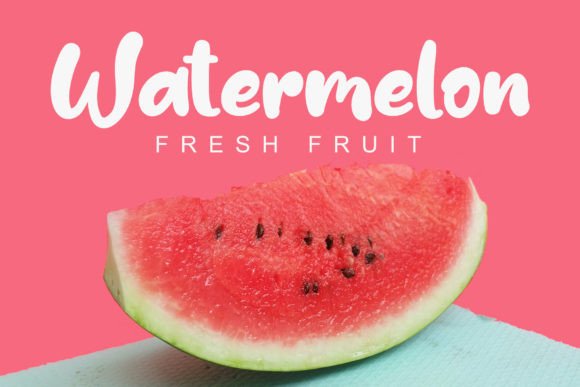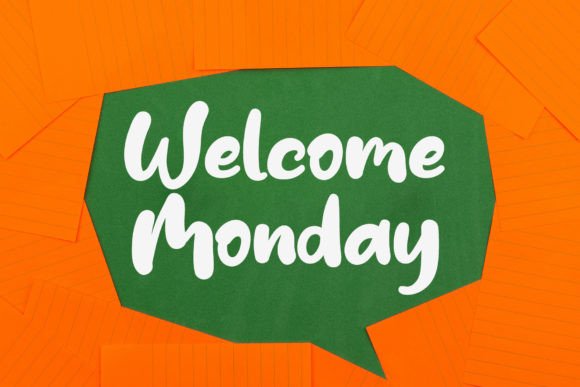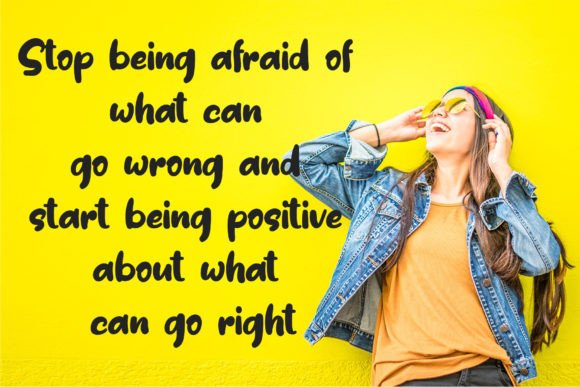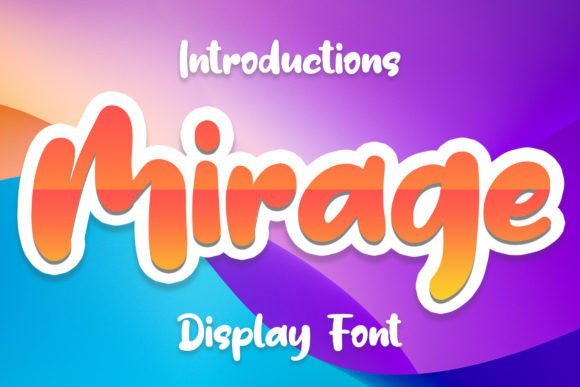
Introduction to Mirage Font
Mirage is a bold, and thick font that will help you create fun and playful designs and will look good on a variety of branding and packaging projects.
This chubby font features the perfect combination of fun and creativity to instantly grab anyone’s attention .